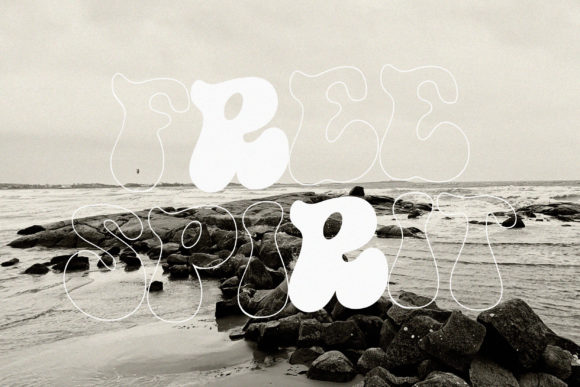
Introduction to Moris JR. Font
Have you ever stared at a blank canvas, eager to bring your creative vision to life? The blank page can be intimidating, but the right design resource can make all the difference. For many designers, the search for the perfect font can be a game-changer. This is where the Moris JR. Font comes in – a high-quality, retro-styled display font that’s sure to elevate any creative project.
Whether you’re working on a graphic design project, crafting a social media post, or simply looking for a bold way to express yourself, the Moris JR. Font is a valuable asset to have in your design library. With its transparent background and free download option, you can easily incorporate it into your workflow. What sets it apart is its unique blend of style and versatility, making it a go-to choice for designers looking to add a touch of sophistication to their work.
Honest Review: Moris JR. Font
As a designer, I’m always on the lookout for high-quality fonts to enhance my creative projects. The Moris JR. Font has caught my attention, and I’m excited to share my honest review.
- ✨ Unique design style: The Moris JR. Font has a distinctive and modern aesthetic that sets it apart from other fonts in its category.
- ✨ Wide range of applications: This font is suitable for a variety of design projects, from logos and branding to digital interfaces and print materials.
- ⚠️ Limited character set: The font only includes a basic character set, which may limit its use in certain design scenarios.
- ⚠️ Not ideal for small text: The font’s design may not be suitable for small text sizes, as the letters can become difficult to read.
Overall, I’m impressed with the Moris JR. Font’s potential as a design resource. While it has its limitations, it’s a great option for designers looking for a high-quality, free font to use in their creative projects.
Moris JR. Font is commonly used for branding and marketing materials, such as business cards, brochures, and social media graphics. It’s also a popular choice for creating presentations and documents that require a professional and creative touch. With its transparent background and high-quality design, Moris JR. Font is a valuable addition to any design resource library.
Comparison to Moris JR. Font: Alex Brush has a more refined and classic feel compared to Moris JR. Font’s playful and modern style.